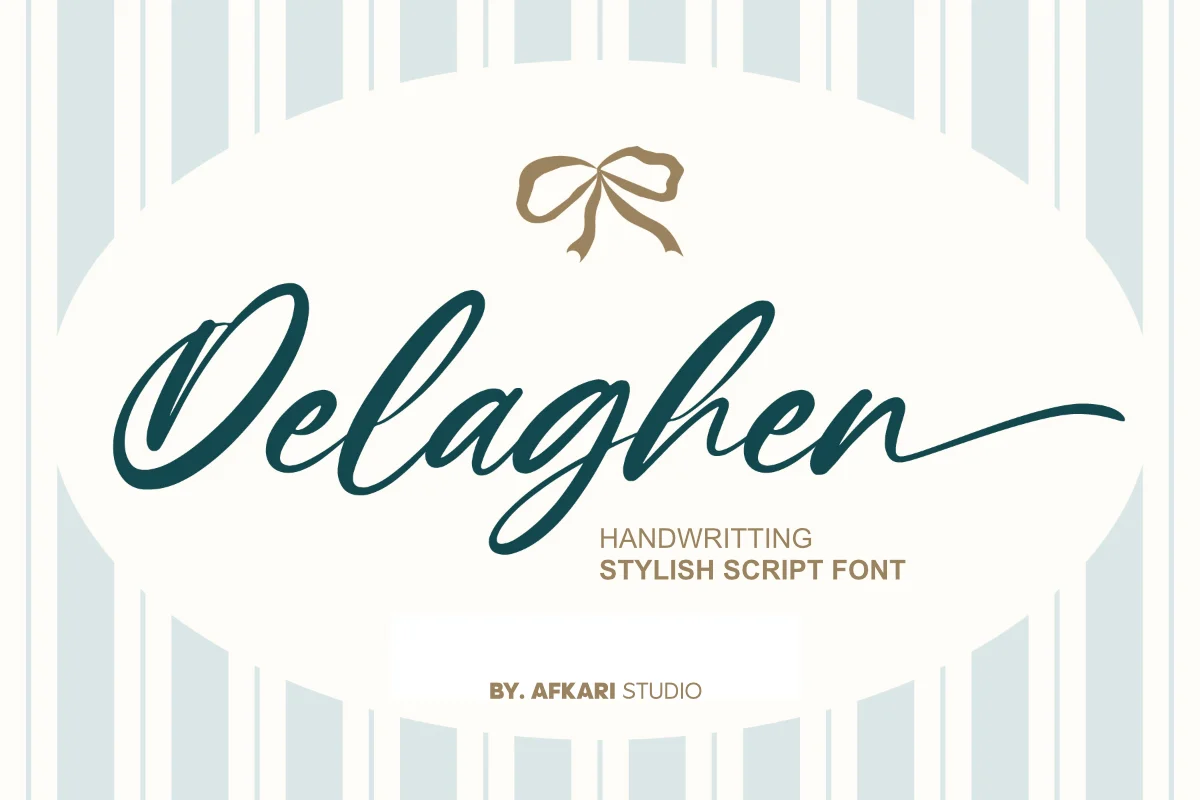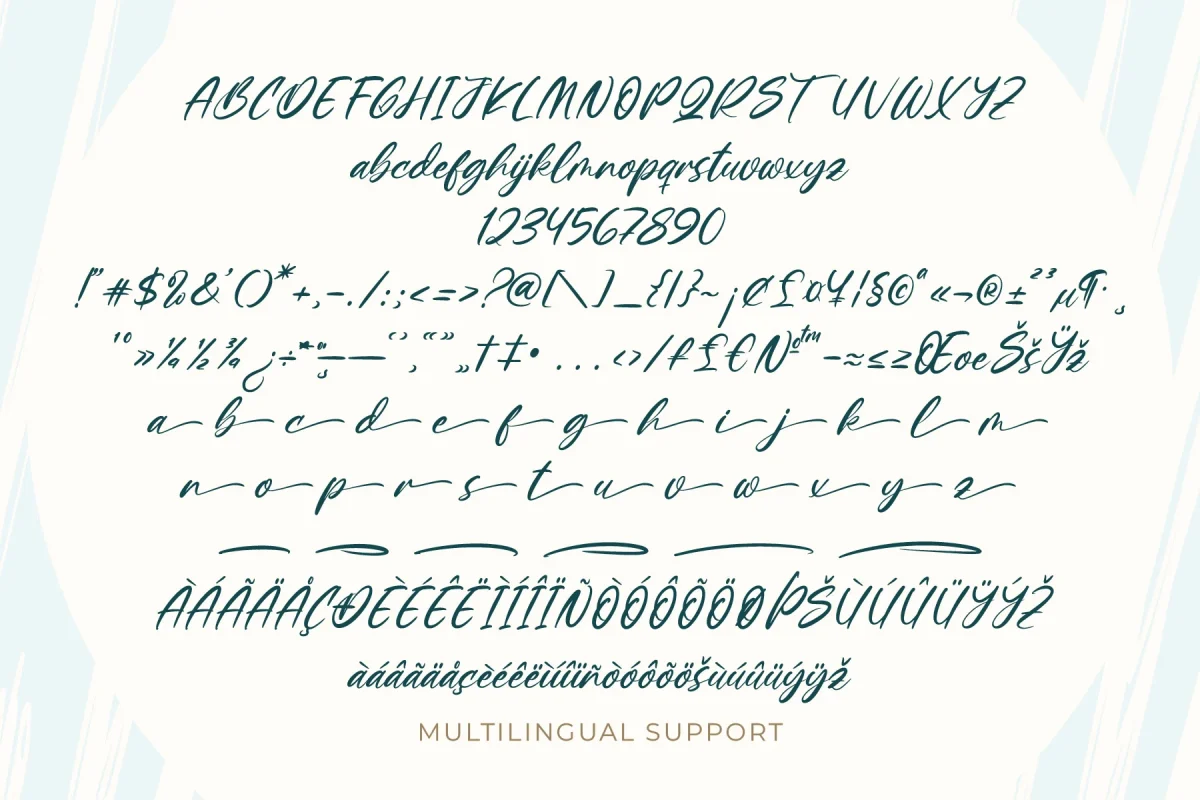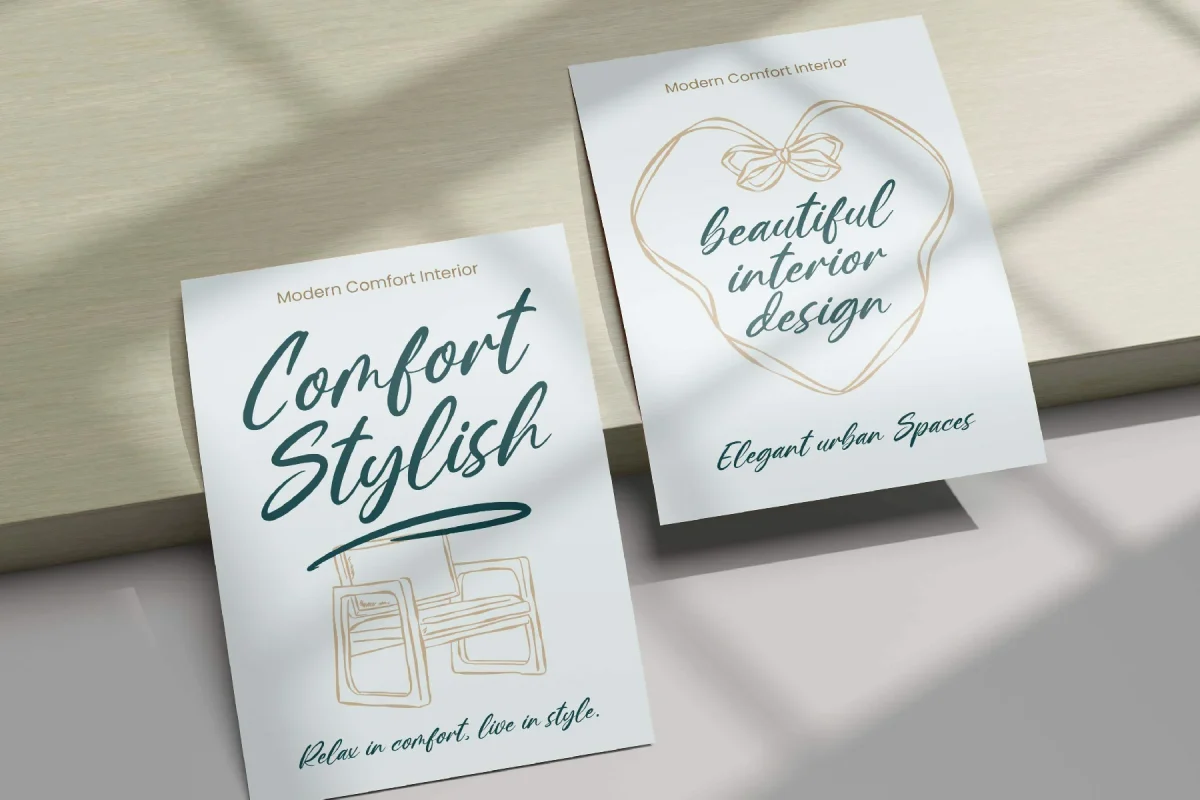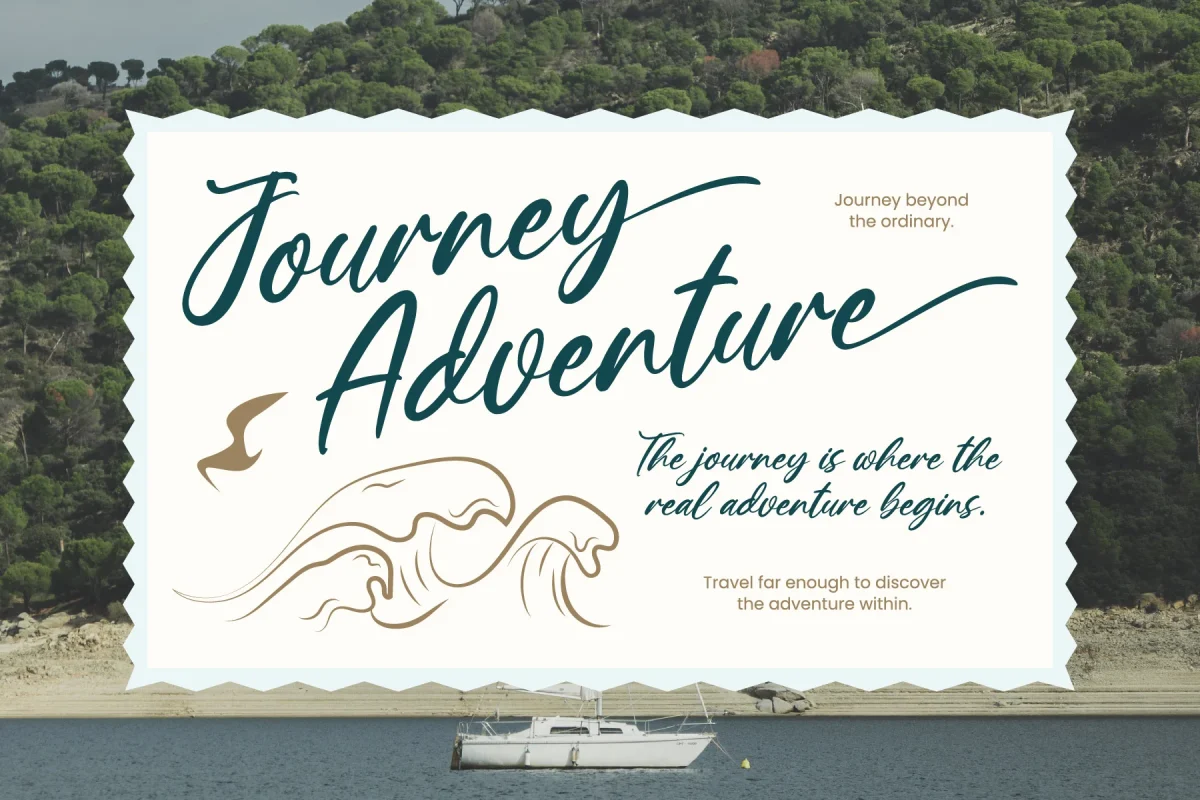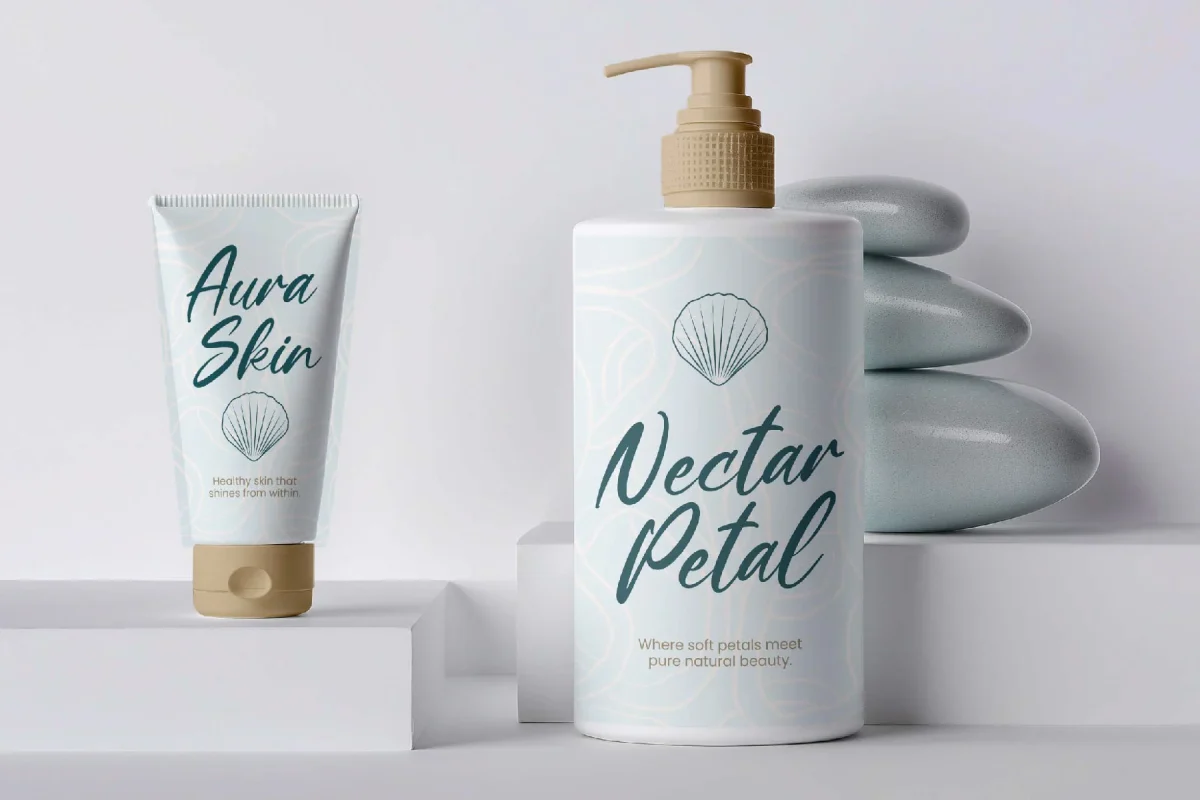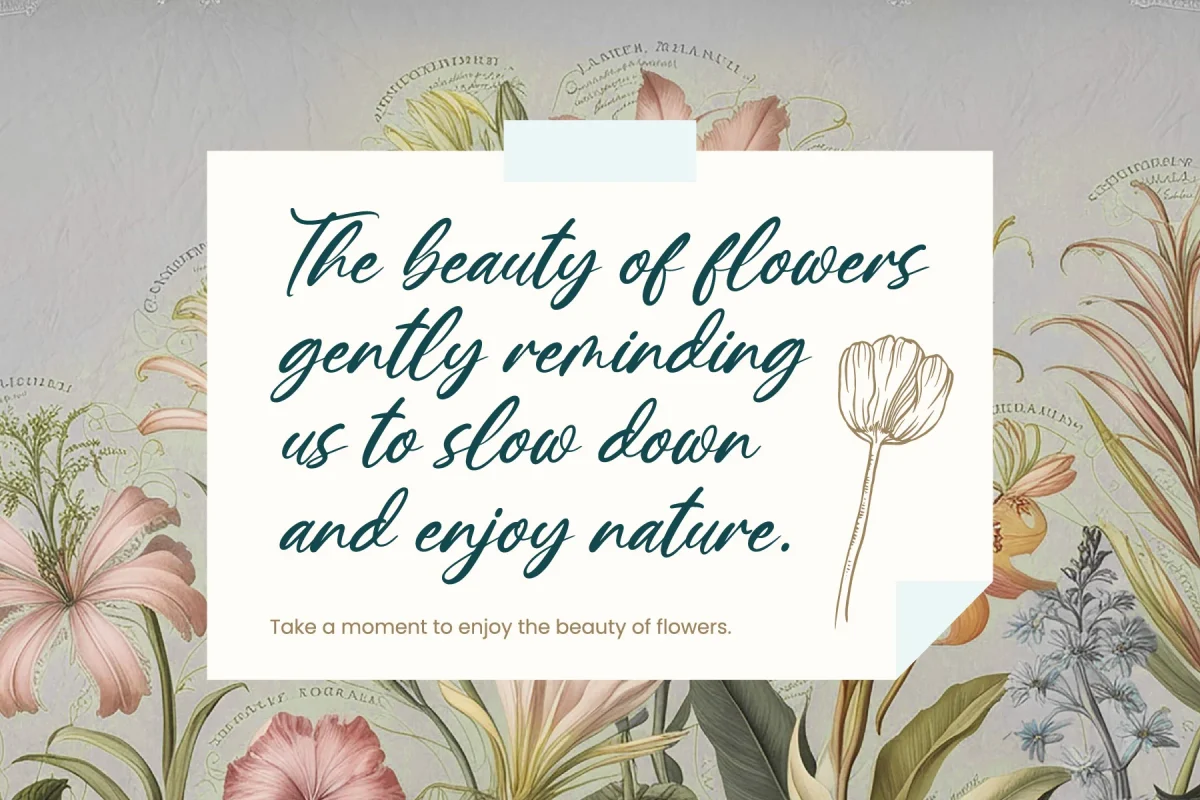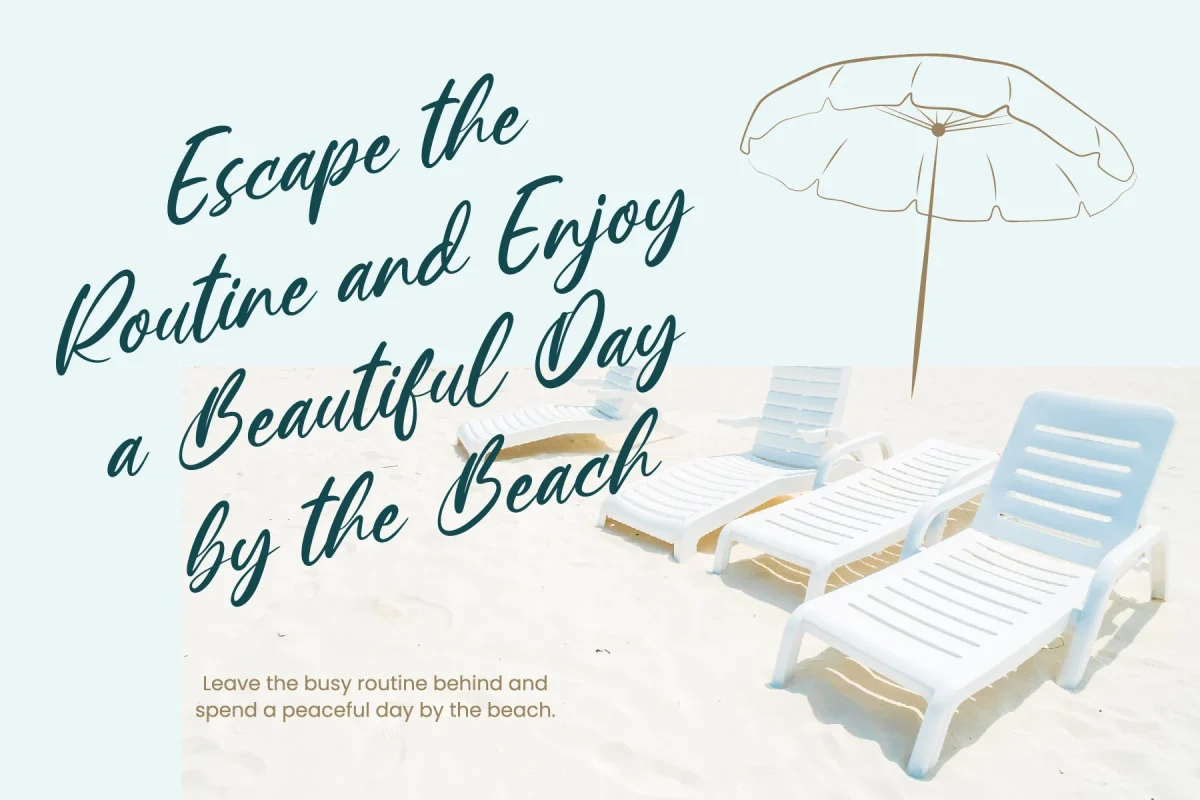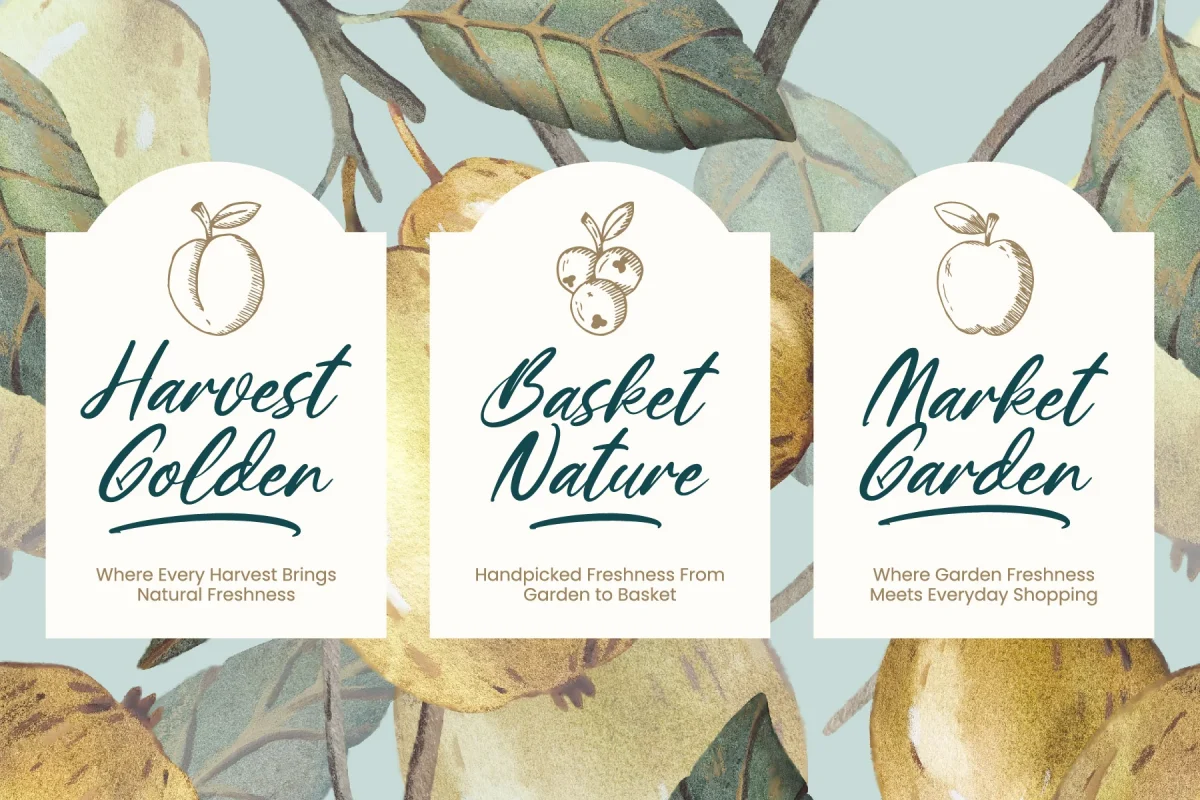
Delaghen is a stylish handwriting script font that blends elegance with a natural handwritten flow. Designed with smooth curves and refined strokes, this font delivers a graceful and modern look while maintaining the warmth and personality of real handwriting.
With its fluid letterforms and stylish character, Delaghen is perfect for creating sophisticated yet approachable designs. It brings a sense of charm and authenticity, making it ideal for projects that require both beauty and readability.
Whether you’re designing branding materials, wedding invitations, social media graphics, or packaging, Delaghen offers a versatile and polished script style that enhances any visual composition.
Features;
- Elegant handwritten script style with smooth, flowing strokes
- Unique alternates for stylish typography
- Uppercase & lowercase characters
- Numbers & punctuation
- Smooth script connections
- Ideal for branding & signature logos
- MültîlÃñgúãl Sùppört for; ä ö ü Ä Ö Ü ß ¿ ¡